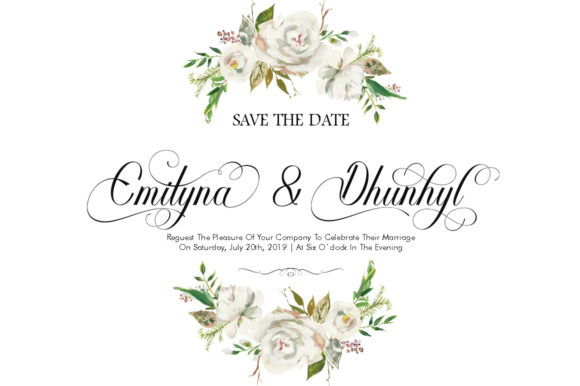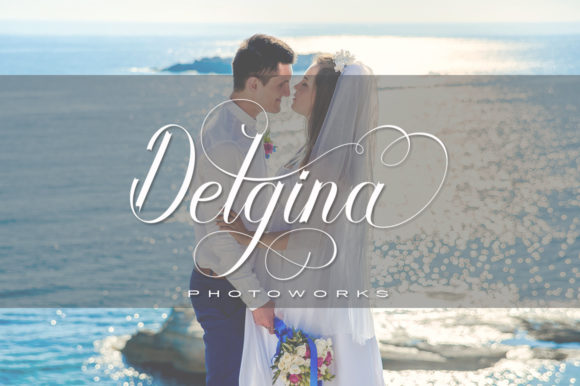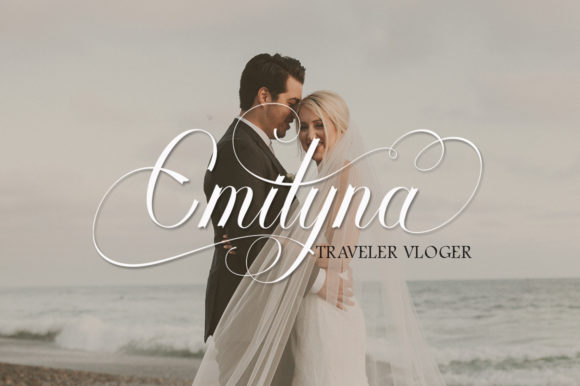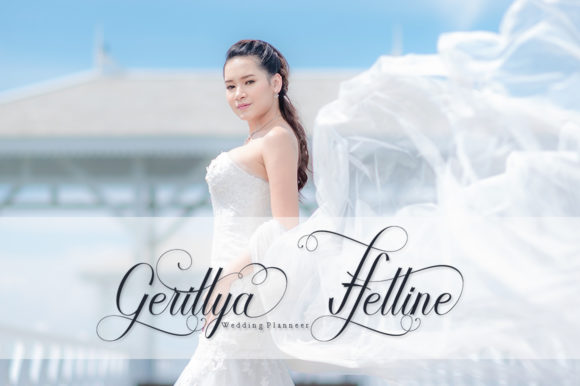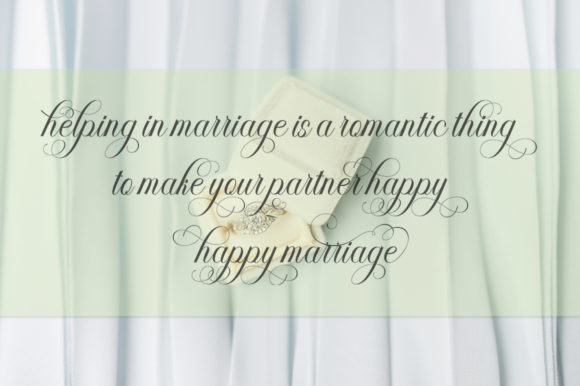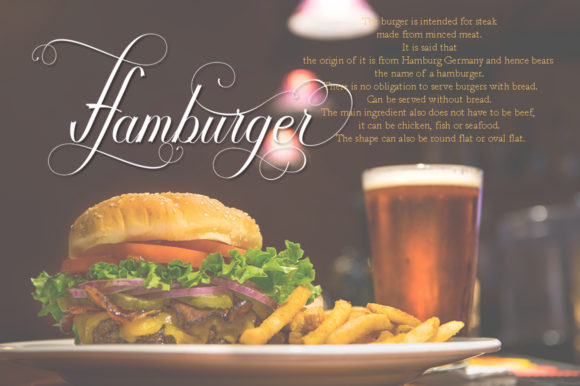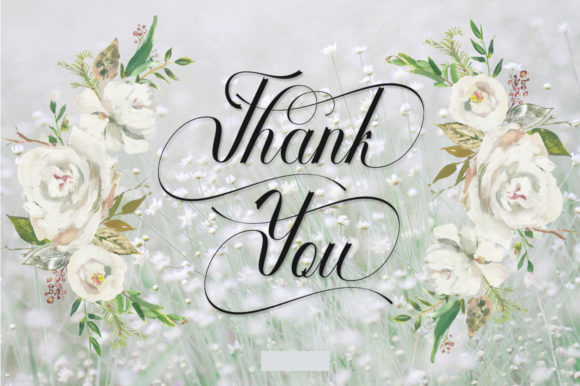
Harendegha Script Font
About Harendegha Script Font
Harendegha is a romantic and delicate handwritten font with a joyful twist. Get inspired by this magnificent font!